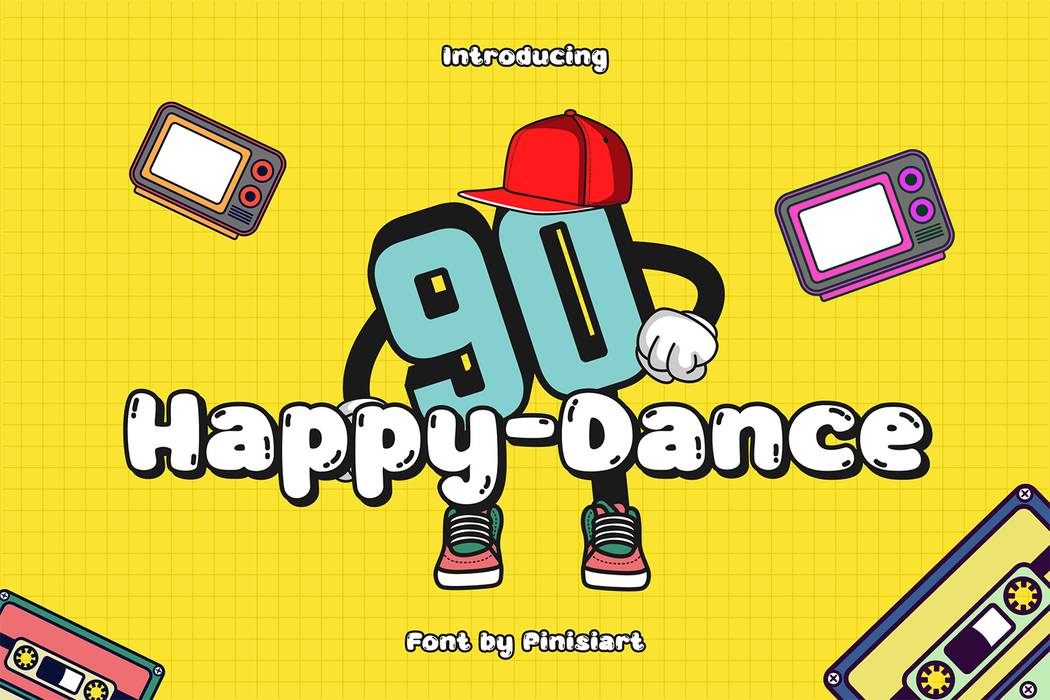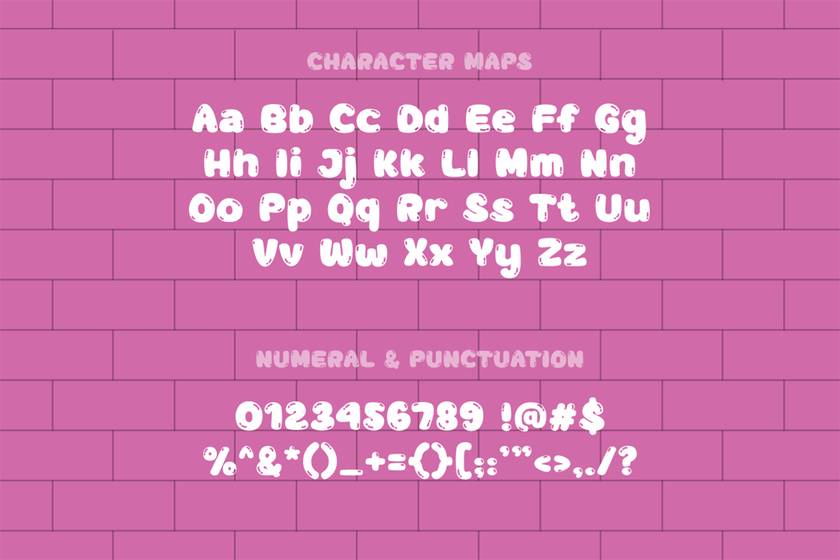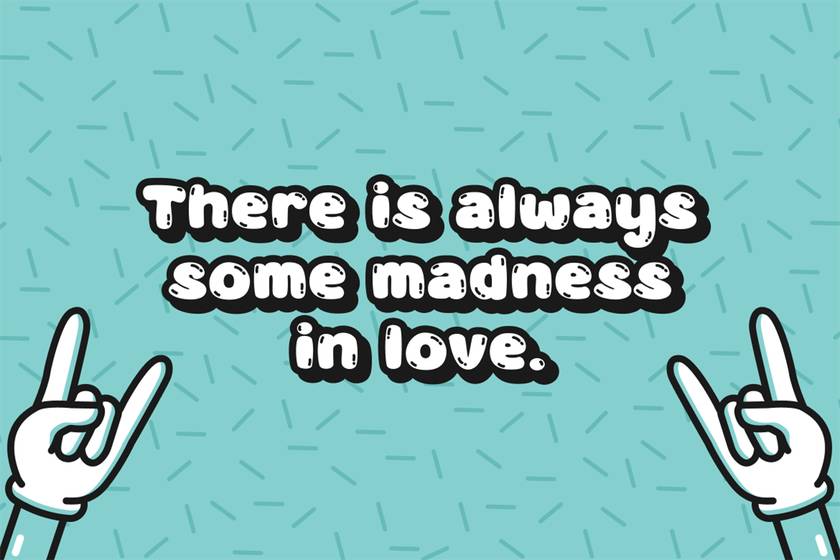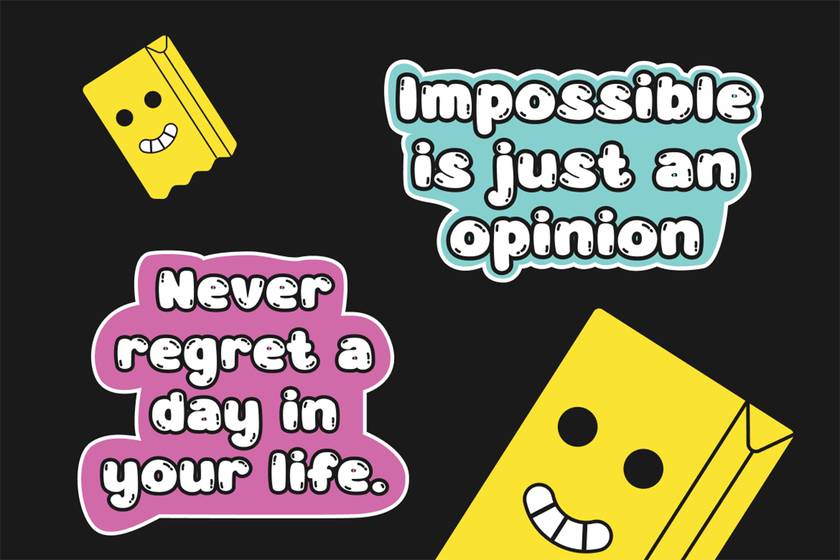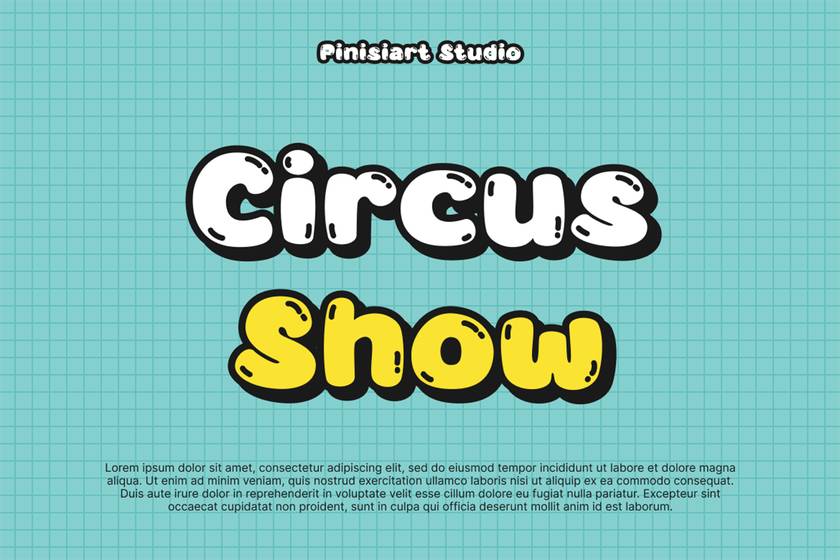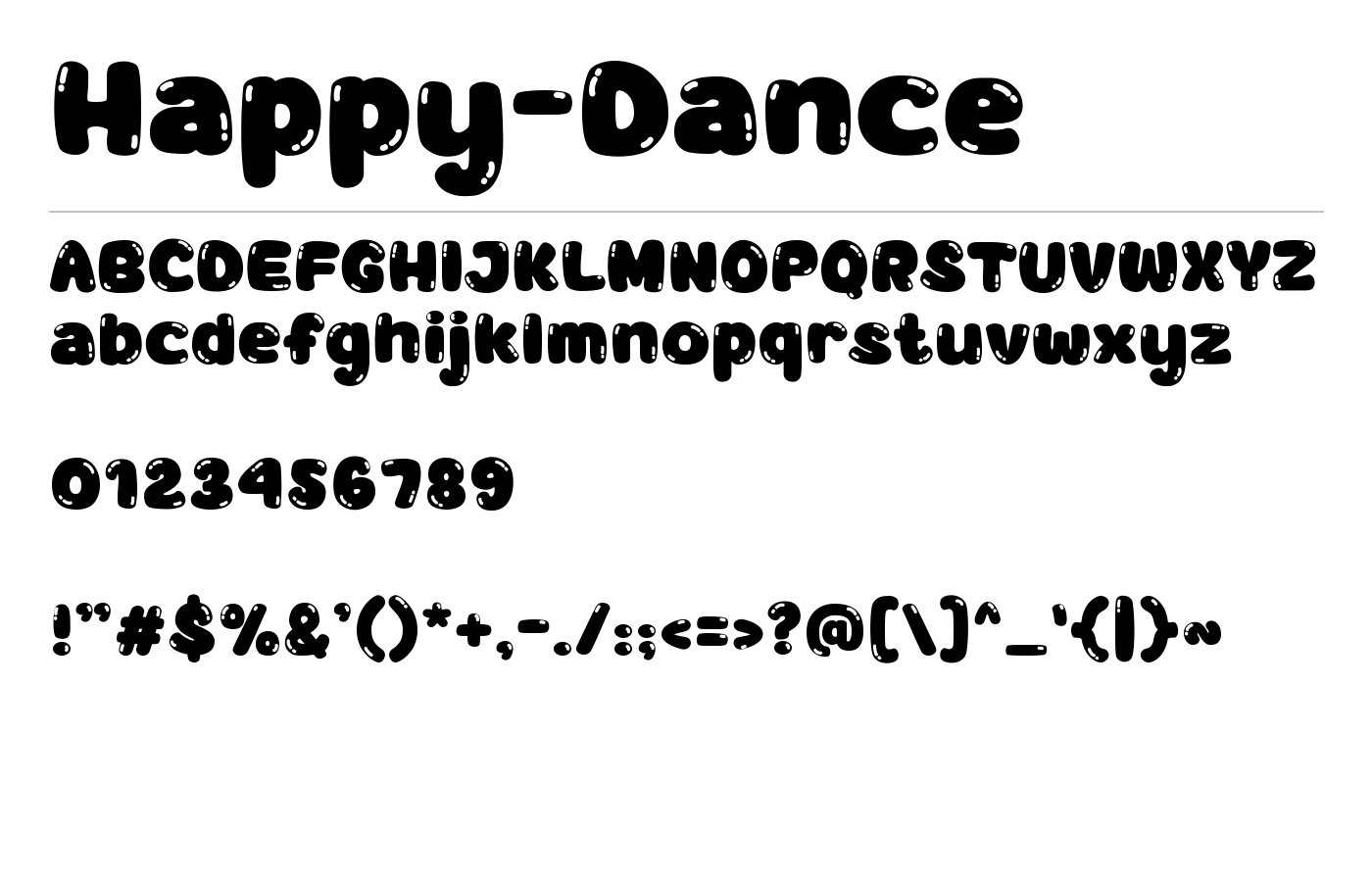
Happy Dance is a bold, playful sans serif font with rounded, bubbly letterforms that evoke a fun and cheerful atmosphere. Its chunky weight and soft curves create a friendly, approachable feel perfect for kids' designs, party invitations, or casual branding where energy and joy are key. This font works best in headlines and eye-catching displays where its whimsical character can shine.
Happy Dance Font
About Happy Dance Font